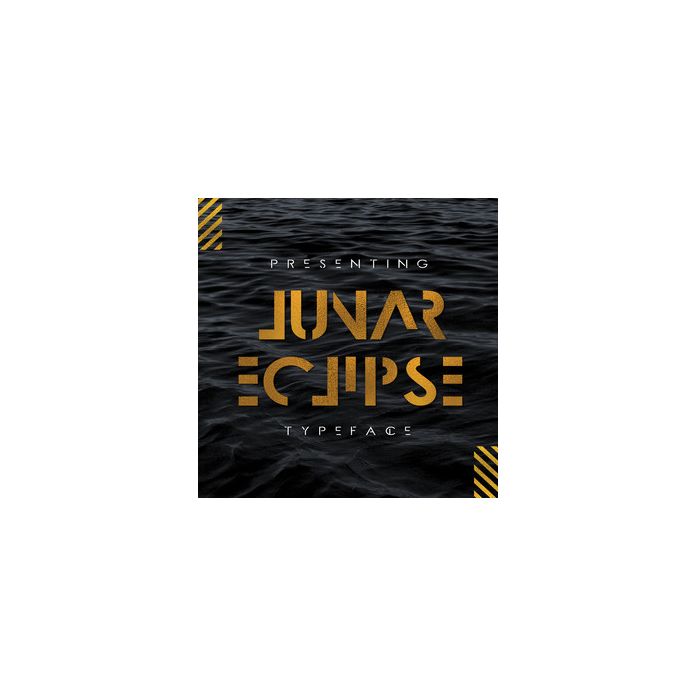
Lunar Eclipse is a bold and edgy font. With its futuristic look, you'll be sure to turn heads. Comes with full set of capitals, lowercase, numerals, punctuation, and international language support.